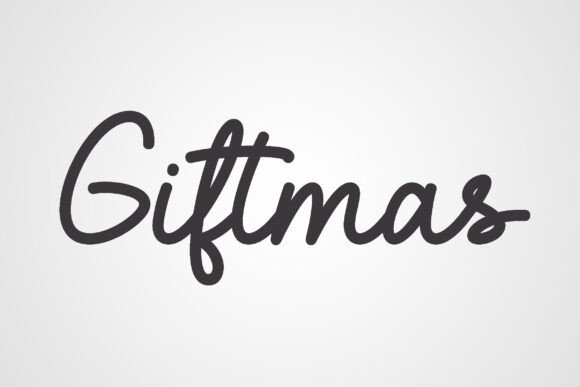
Introduction to Giftmas Font
Giftmas it’s a monoline script friendly, pretty, elegant, modern, lettering, cool font, simple font, trendy font, so you can use it for headlines, cards, invites, logotypes, magazines, and, of course, movie posters and t-shirts.
Giftmas Font offers exceptional quality and versatility, making it a valuable addition to your design toolkit. Whether you’re creating for personal projects or commercial use, Giftmas Font delivers professional results.